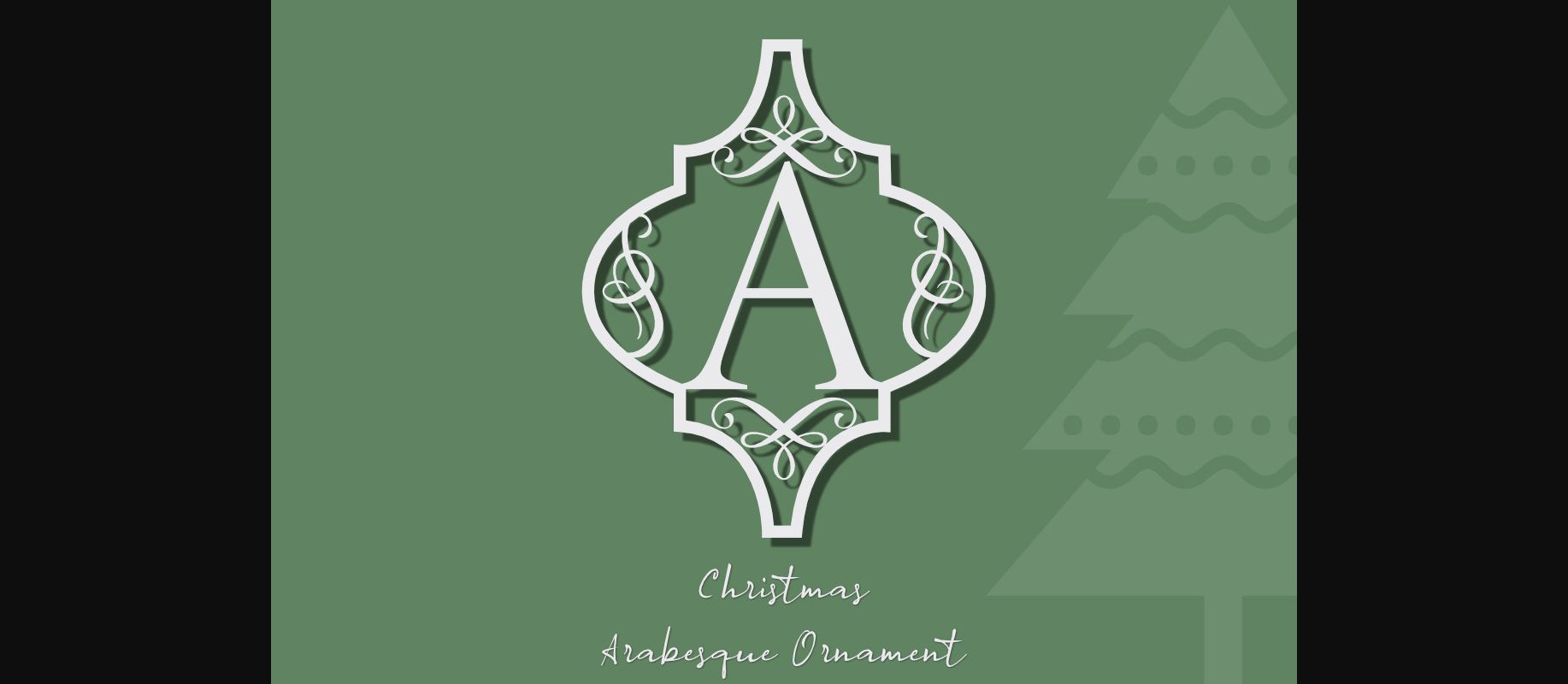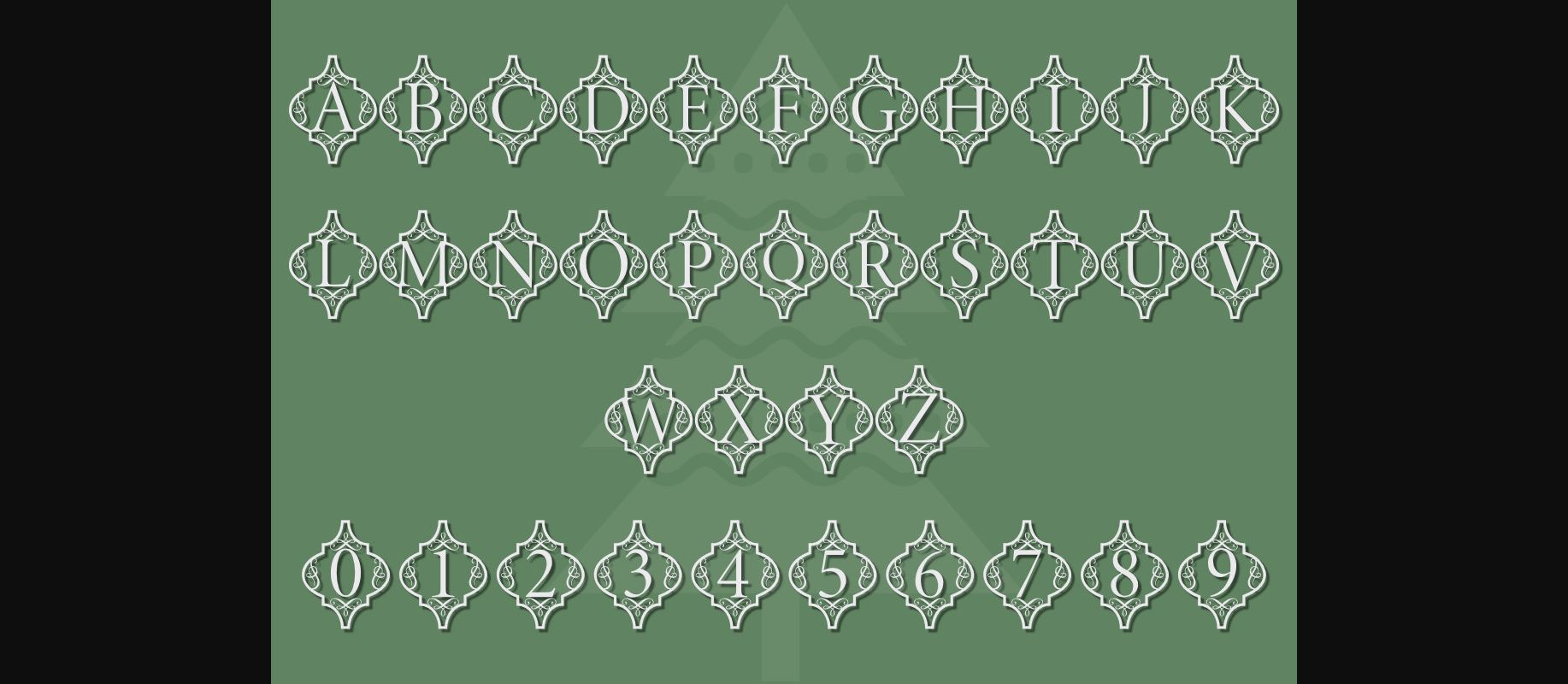
About Arabesque Christmas Ornament Font
Arabesque Christmas Ornament is a dainty and highly detailed decorative font. Fall for its ravishing style and use it to create gorgeous wedding invitations, beautiful stationary art, eye-catching social media posts, and much more!